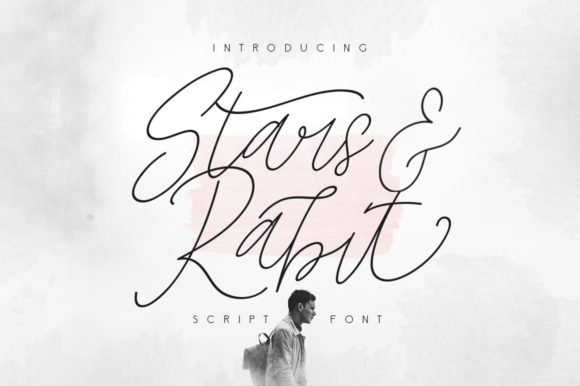
Stars and Rabbit Script: A Handwritten Touch for Modern Design
There’s something undeniably magnetic about a font that feels like it was just written by hand. Stars and Rabbit Script is exactly that—a thin, flowing script typeface with a personality that’s both elegant and approachable. It doesn’t just sit on the page; it dances across it, carrying the quiet confidence of a personal note or a carefully crafted signature. If you’ve ever wanted to infuse your designs with genuine warmth and a touch of human artistry, this font deserves your attention.
More Than Just Letters: The Visual Character of This Script
At its core, Stars and Rabbit Script is a study in graceful movement. Its thin letterforms are connected with smooth, fluid strokes, creating a rhythm that’s easy on the eyes. The baseline has a gentle, natural sway—not so wild that it becomes illegible, but enough to give it an organic, handmade quality. This isn’t a rigid, formal calligraphy; it’s more like the confident cursive of someone who loves to write. The slight variations in stroke weight add depth and authenticity, preventing it from looking like a sterile digital output.
The personality of Stars and Rabbit Script is versatile. It can whisper sophistication on a wedding invitation, shout creativity on a logo, or convey heartfelt thanks on a greeting card. It strikes a rare balance: it’s decorative enough to be a standout display font yet retains enough clarity for shorter textual blocks. Think of it as the premium font that brings a project to life without overwhelming it. Its modern take on a classic script font style makes it relevant for contemporary brand identity work, avoiding the overly dated or frilly look some scripts fall into.
Where This Font Truly Shines: Practical Applications
Understanding where a font like Stars and Rabbit Script excels is key to using it effectively. Its strength lies in applications where emotion, personality, and a personal touch are paramount.
In Branding and Marketing: For entrepreneurs and small business owners, this font can become the cornerstone of a memorable brand. Imagine it on a boutique bakery’s logo, a lifestyle blogger’s header, or the packaging for artisanal products. It instantly communicates care, craftsmanship, and a personal connection. Used in social media graphics for quotes or announcements, it stops the scroll because it feels different from the standard sans serif fonts dominating feeds. It’s a powerful tool for logo design when paired with a clean, stable companion font, creating a mark that’s both distinctive and professional.
In Creative and Editorial Projects: Designers and publishers will find this creative font invaluable for adding visual interest. In editorial design, it can create stunning pull quotes, chapter titles, or magazine cover lines that draw the reader in. For packaging design, it can elevate product labels, making them feel bespoke and high-end. It’s a natural fit for thank you cards, event programs, and any print piece where you want the design to feel like a gift in itself.
In Digital and Web Spaces: While it’s not meant for body text, Stars and Rabbit Script can dramatically enhance web design when used strategically. It’s perfect for hero section headlines, special announcement banners, or stylized call-to-action buttons that need to stand out. The key is to ensure the surrounding design is clean and the font is used at a size that maintains its legibility on screen. Its flowing nature adds a layer of sophistication that many modern websites crave.
Using It Wisely: A Designer’s Practical Guide
Adopting a new typeface into your toolkit requires more than just liking its look. Here’s how to approach Stars and Rabbit Script with a professional eye.
Evaluate the Project Fit: First, ask what the project needs to say. If the goal is to convey technical precision or corporate neutrality, this isn’t your font. But if the brief calls for warmth, elegance, creativity, or a personal narrative, it’s a strong candidate. It’s a handwritten font at heart, so it brings a human element to any design.
Master the Font Pairing: This is crucial. Stars and Rabbit Script needs a partner that provides balance and ensures overall readability. A classic pairing strategy is to combine it with a simple, geometric sans serif font or a clean, modern serif font. The script font handles the emotive headlines, while the companion font manages the more straightforward informational text. This creates a clear visual hierarchy and ensures your message is both beautiful and accessible.
Check the Styles and Licensing: Before you commit, see what’s included. Does the commercial font license cover all your intended uses? Does it come with stylistic alternates, ligatures, or multiple weights? These extras can significantly expand its utility. Stars and Rabbit Script often includes these design assets, allowing you to customize the look and avoid repetition in longer texts.
Test for Readability: Always test your chosen text in context. A script font’s legibility can change with size, color, and background. Set your headlines and key phrases, then view them from a distance or on a mobile screen. The thin strokes of Stars and Rabbit Script work best with good contrast and ample spacing. Avoid using it for long sentences or small sizes where its delicate details might get lost.
Ultimately, incorporating a font like Stars and Rabbit Script into your work is about making a deliberate choice to add warmth and personality. It’s a design asset that doesn’t just display words—it communicates feeling. Used thoughtfully, it can transform a standard project into something that feels crafted, personal, and genuinely engaging for your audience.